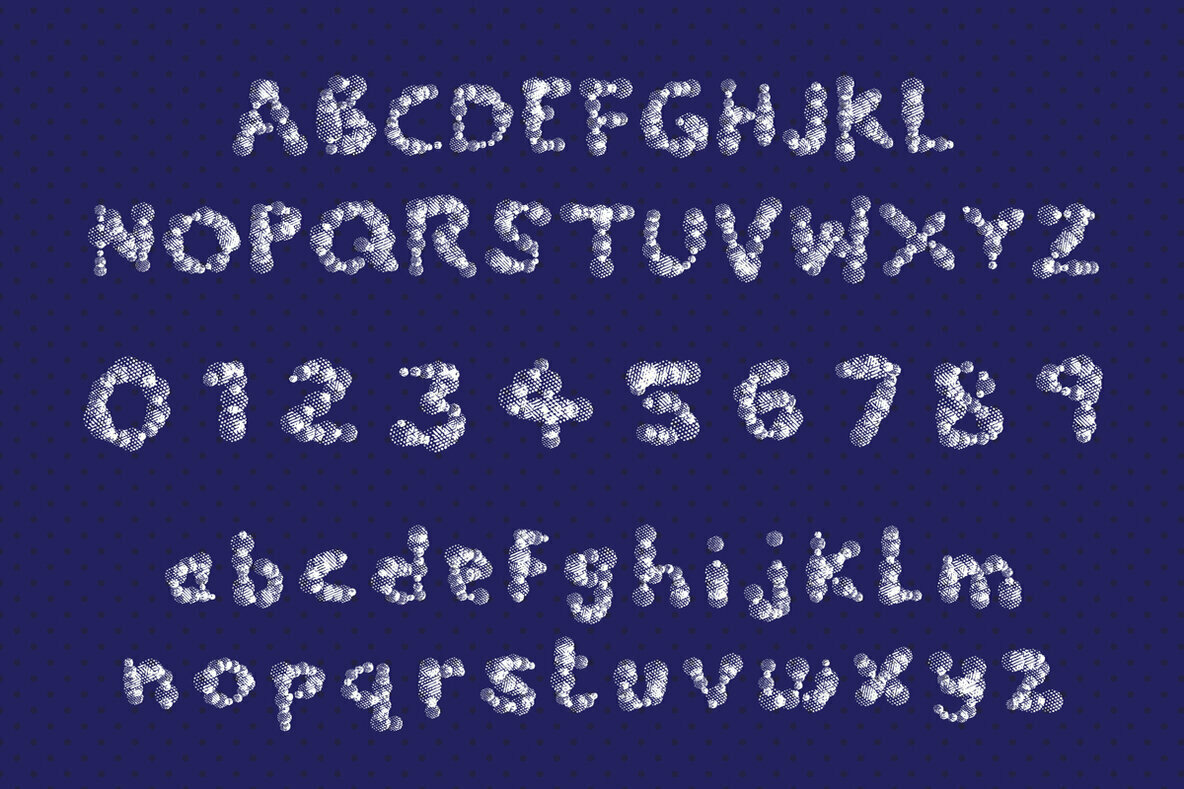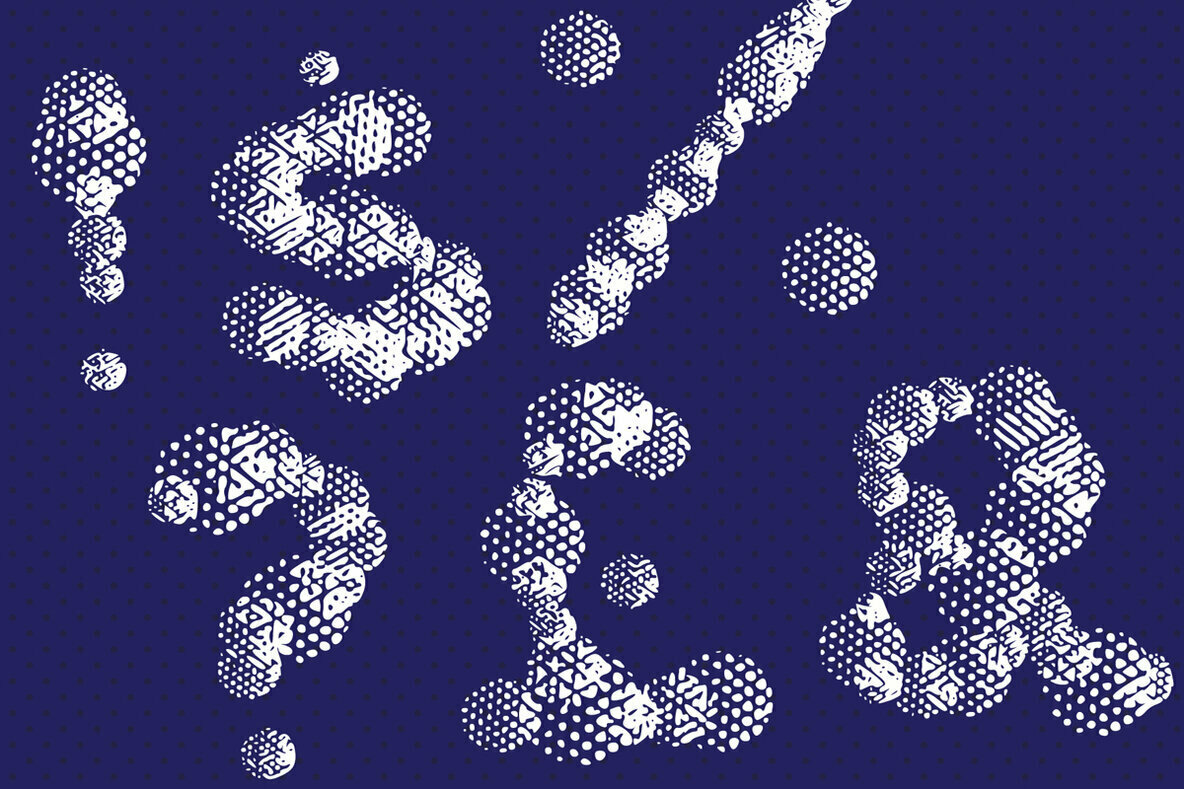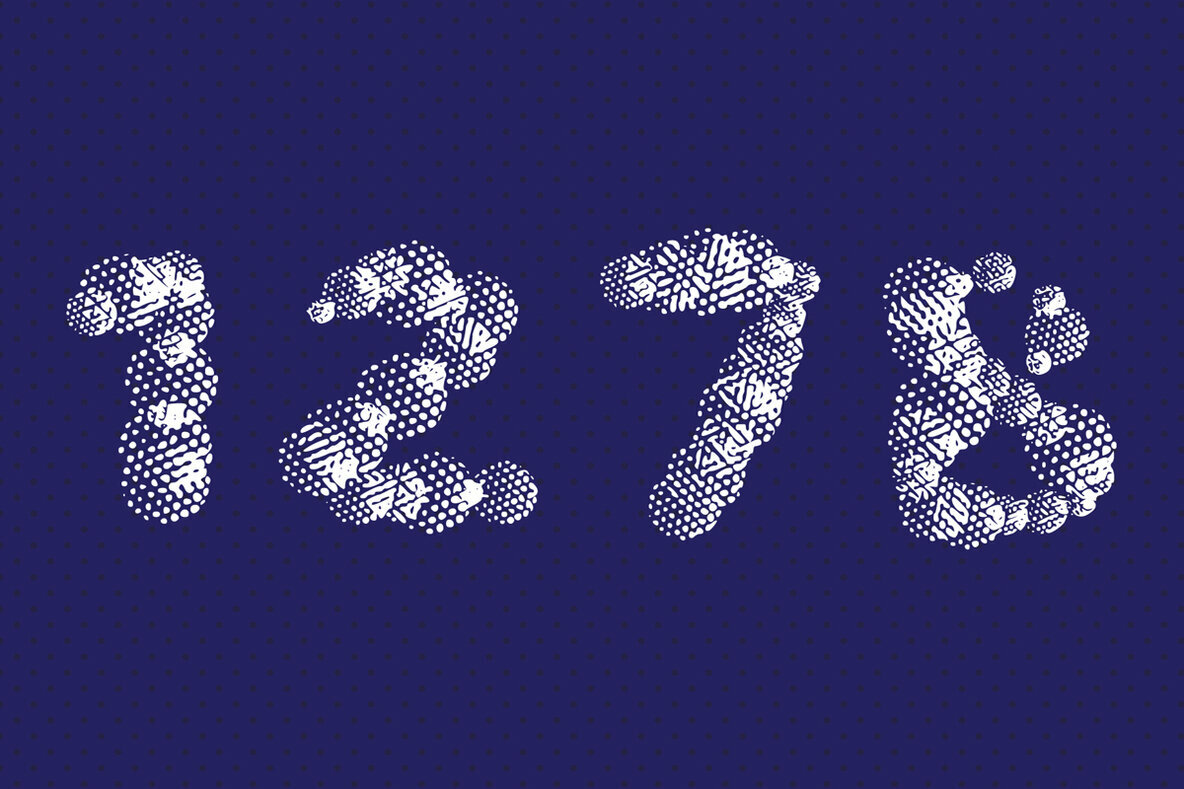
Retro Dot Font
Retro Dot
Rero Dot embodies fun, quirkiness and authenticity. Get creative with its unique playfulness, and use it to brighten up your crafting projects!